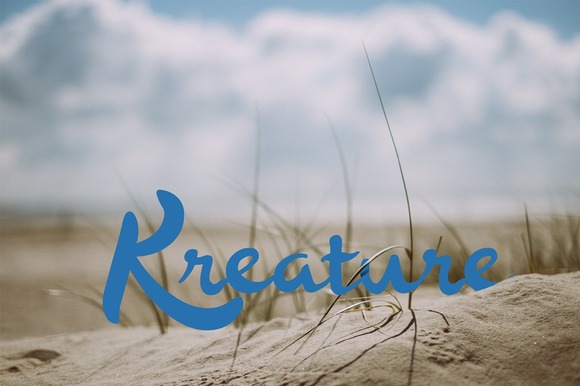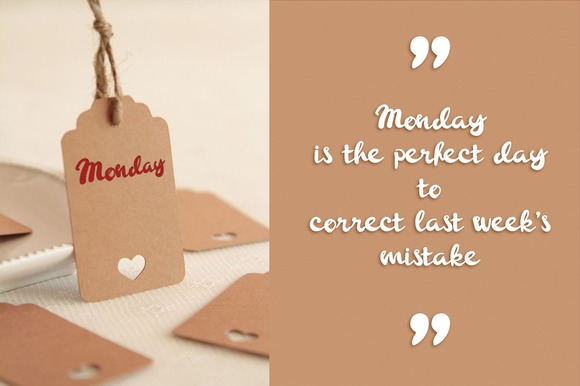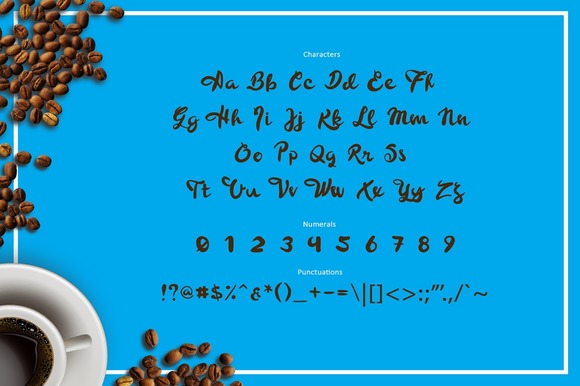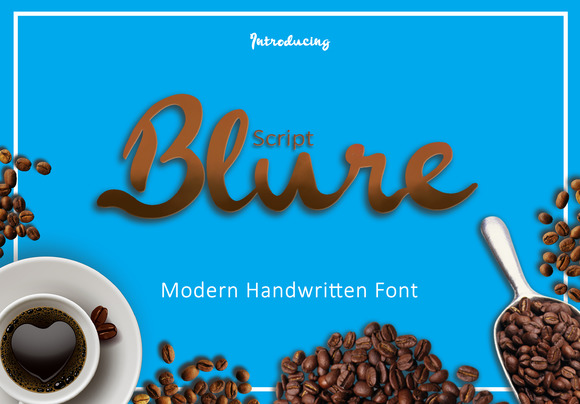
BLURE Script Font
BLURE Script is a handwritten font. smooth edged soft ink Script font that delivers character and nicely in your design. Perfect for any sort of Typography or Lettering projects.